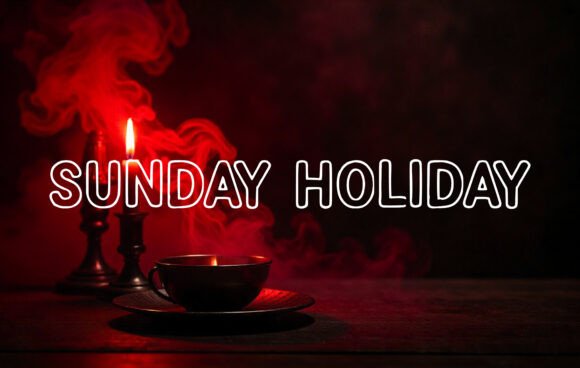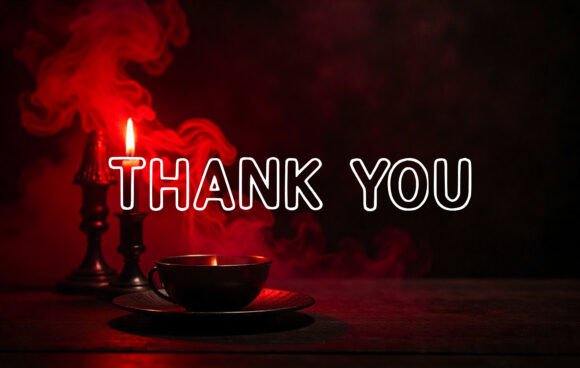
Ignite a Sense of Mystery and Sophisticated Drama with Couple Font
In the world of typography, few fonts manage to evoke a sense of mystery and sophisticated drama as effectively as the Couple font. This distinctive typeface is characterized by its elegant, outlined letterforms that feel architectural and modern, making it a perfect choice for designers looking to add a touch of luxury and intrigue to their projects.
The Unique Characteristics of Couple Font
The Couple typeface is defined by its clean, hollow centers and smooth, continuous strokes, creating a visual rhythm that is both airy and commanding. The outlined structure of the font allows for a level of versatility that is hard to find in more traditional typefaces. Whether you’re looking to create a premium lifestyle brand, a night-themed visual, or a high-end lounge menu, the Couple font is specifically designed to help you achieve your goals.
Designing with Couple Font
One of the key benefits of the Couple font is its ability to play with negative space and layering. The outlined structure of the letters allows you to place vibrant photography or textures behind the letters for a sophisticated “peek-a-boo” effect. This technique can add a level of depth and visual interest to your designs that is hard to achieve with more traditional fonts.
Perfect Pairings for Couple Font
To get the most out of the Couple font, it’s essential to pair it with a complementary typeface. For a luxury aesthetic, try pairing it with a high-contrast serif font. The contrast between the smooth, modern lines of the Couple font and the traditional, serif font will create a visually appealing combination that is sure to impress. Alternatively, keeping the Couple font monochromatic can create a sharp, tech-forward look that is perfect for modern brands and designers.
Using Couple Font in Different Design Applications
The Couple font is a versatile typeface that can be used in a variety of design applications. Here are a few ideas to get you started:
- Cinematic Titles: The Couple font is perfect for creating cinematic titles that demand attention. The outlined structure and elegant lines of the font make it a natural fit for film and video production.
- High-End Lounge Menus: Add a touch of luxury to your high-end lounge menu with the Couple font. The font’s sophisticated lines and airy feel make it a perfect choice for upscale establishments.
- Minimalist Fashion Labels: The Couple font is also a great choice for minimalist fashion labels. The font’s clean lines and modern aesthetic make it a perfect fit for fashion brands looking to make a statement.
Tips for Getting the Most Out of Couple Font
To get the most out of the Couple font, here are a few tips to keep in mind:
- Experiment with Negative Space: Don’t be afraid to play with negative space when using the Couple font. The outlined structure of the letters allows for a level of creativity and experimentation that is hard to achieve with more traditional fonts.
- Try Different Color Combinations: The Couple font looks great in a variety of color combinations. Try pairing it with a bold, bright color for a statement look, or keep it monochromatic for a more subtle effect.
- Use it to Create Contrast: The Couple font is perfect for creating contrast in your designs. Try pairing it with a more traditional font or a bold, graphic element to create visual interest.
The Couple font is a versatile and sophisticated typeface that is perfect for designers looking to add a touch of luxury and intrigue to their projects. With its elegant, outlined letterforms and airy feel, it’s a natural fit for premium lifestyle branding, night-themed visuals, and high-end design applications. Whether you’re a seasoned designer or just starting out, the Couple font is a great choice for anyone looking to ignite a sense of mystery and sophisticated drama in their work.